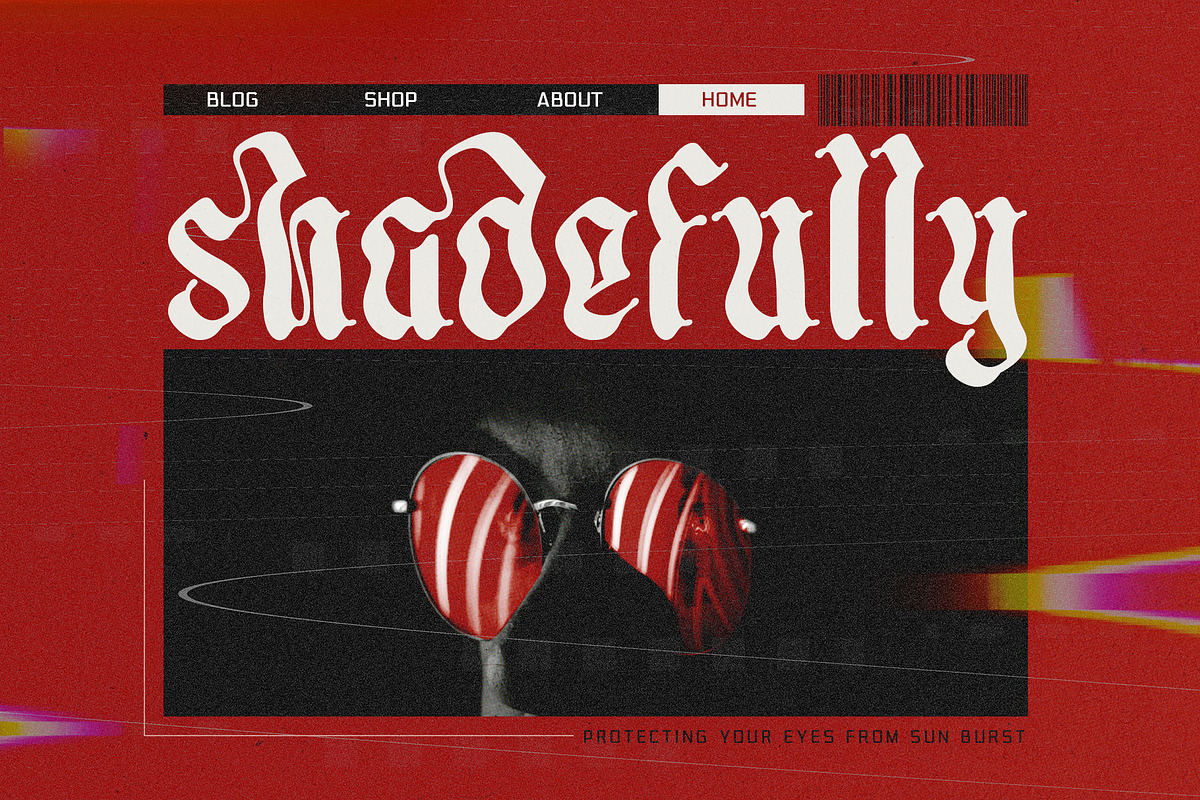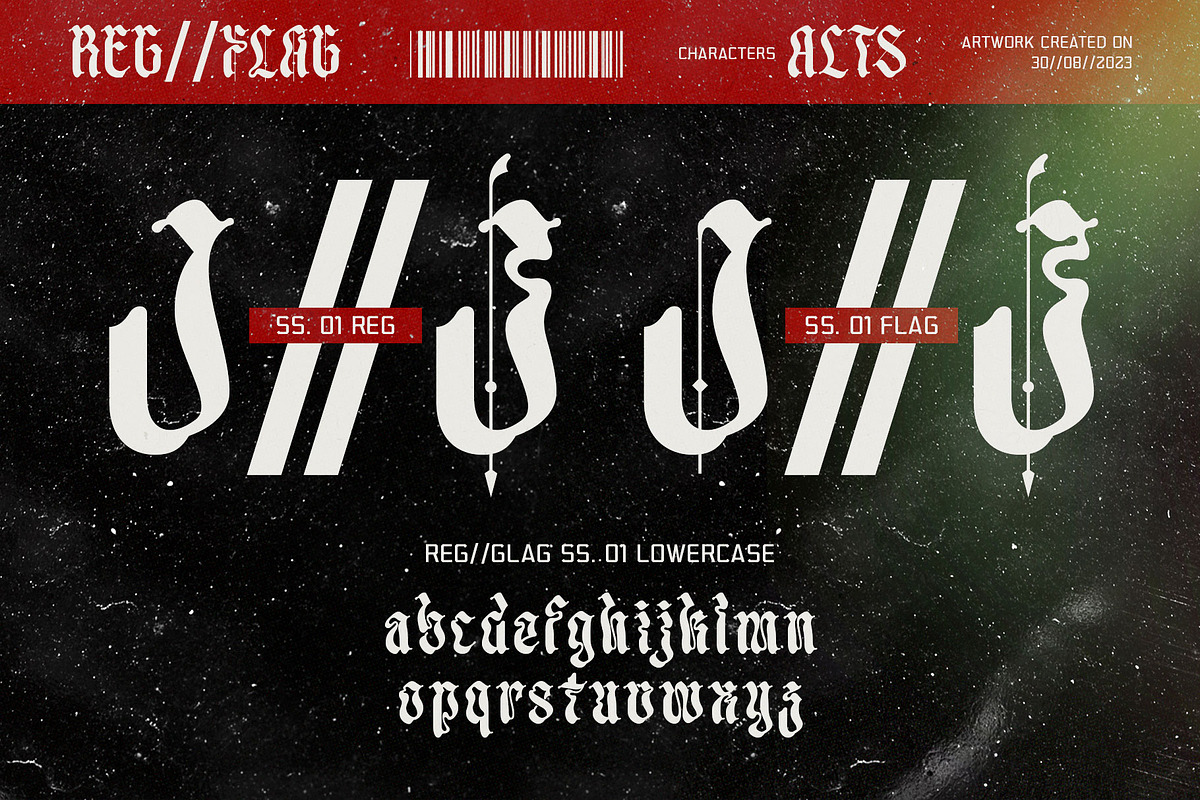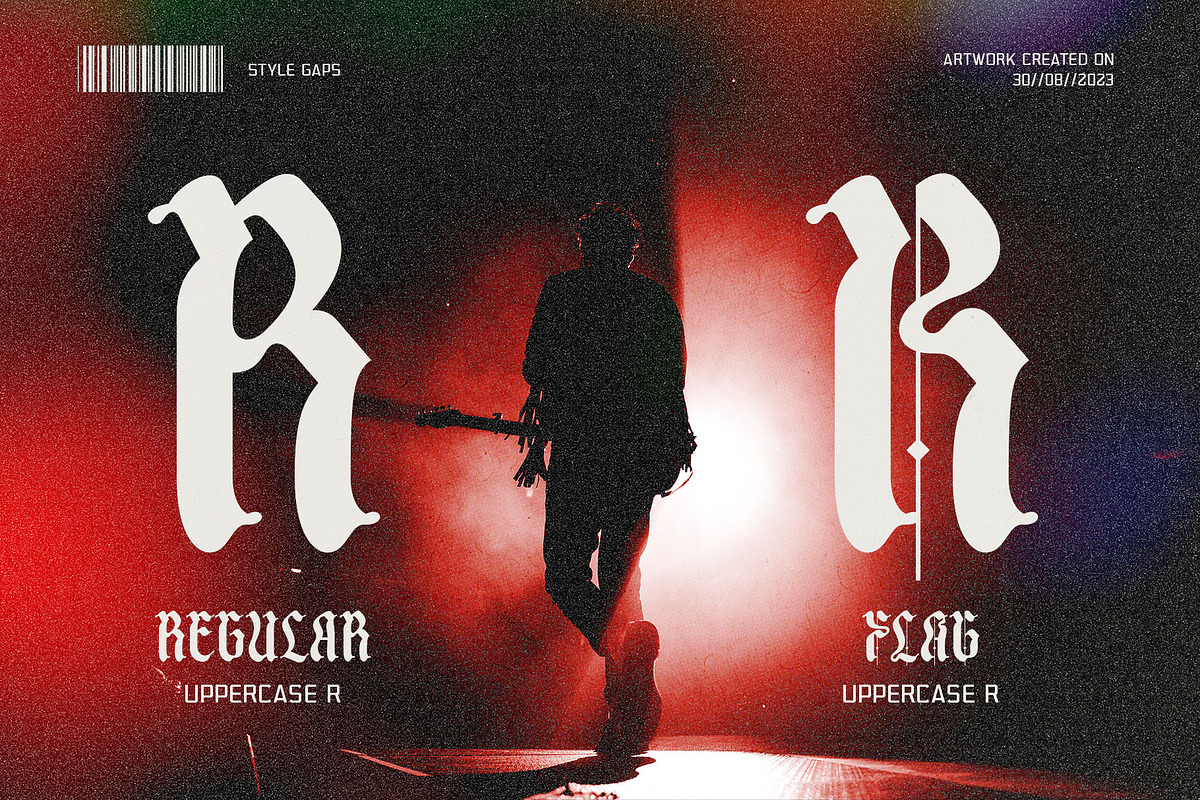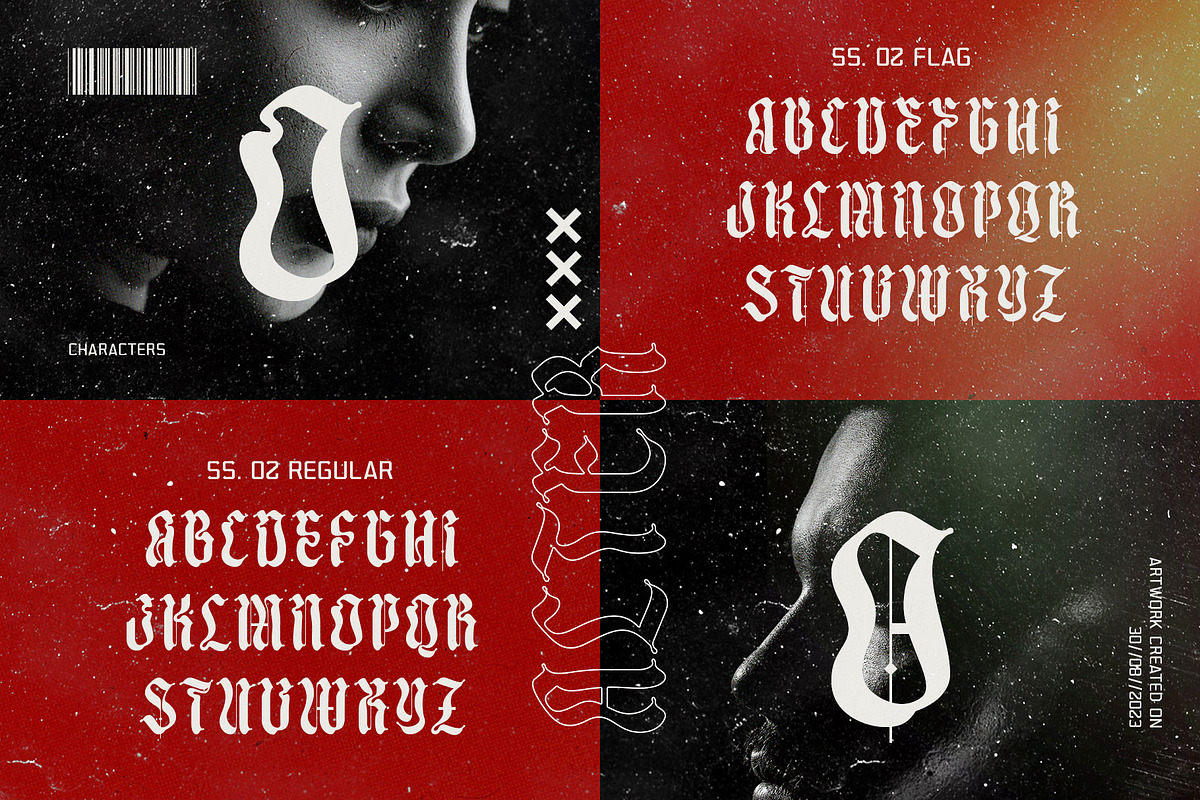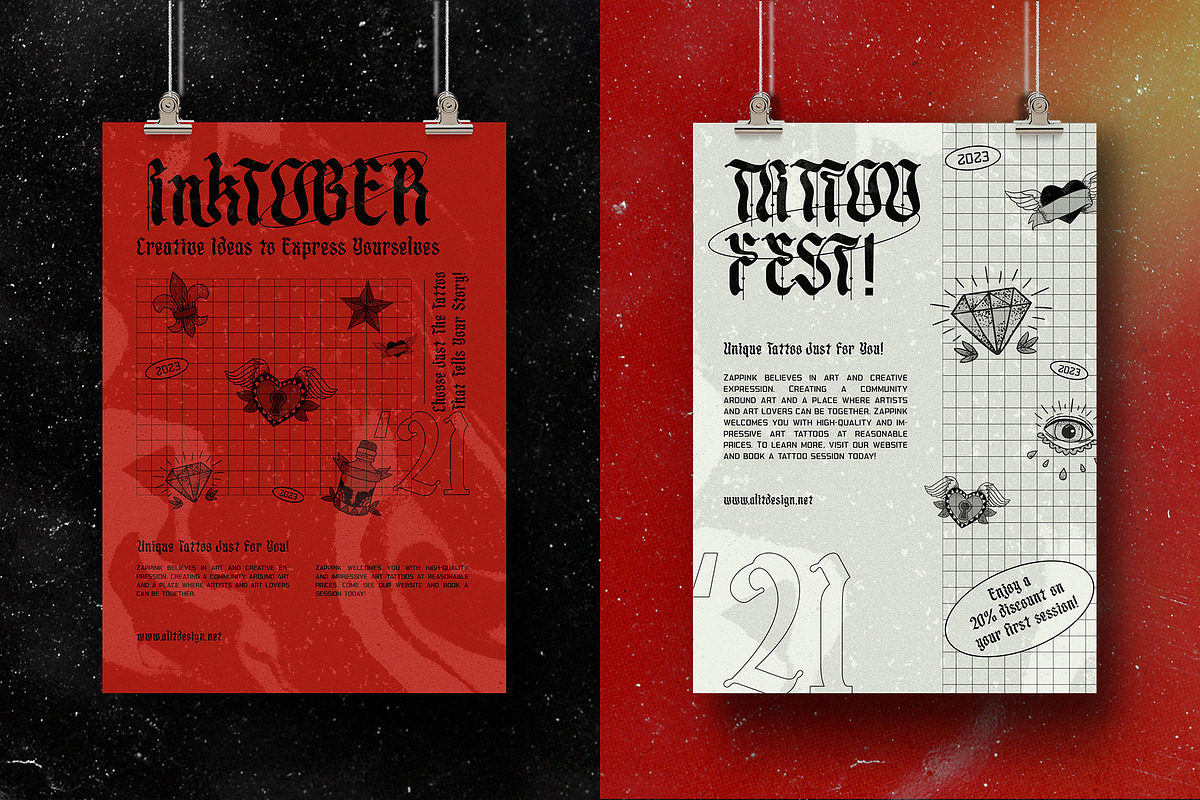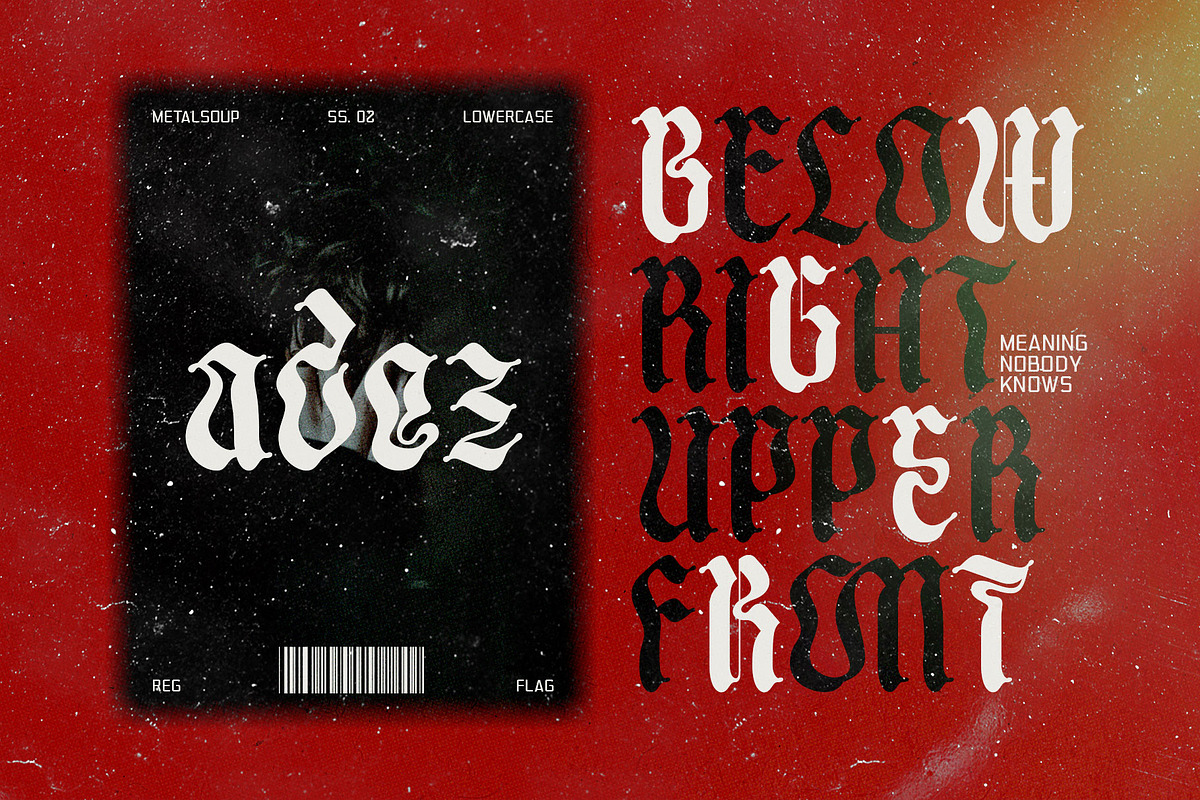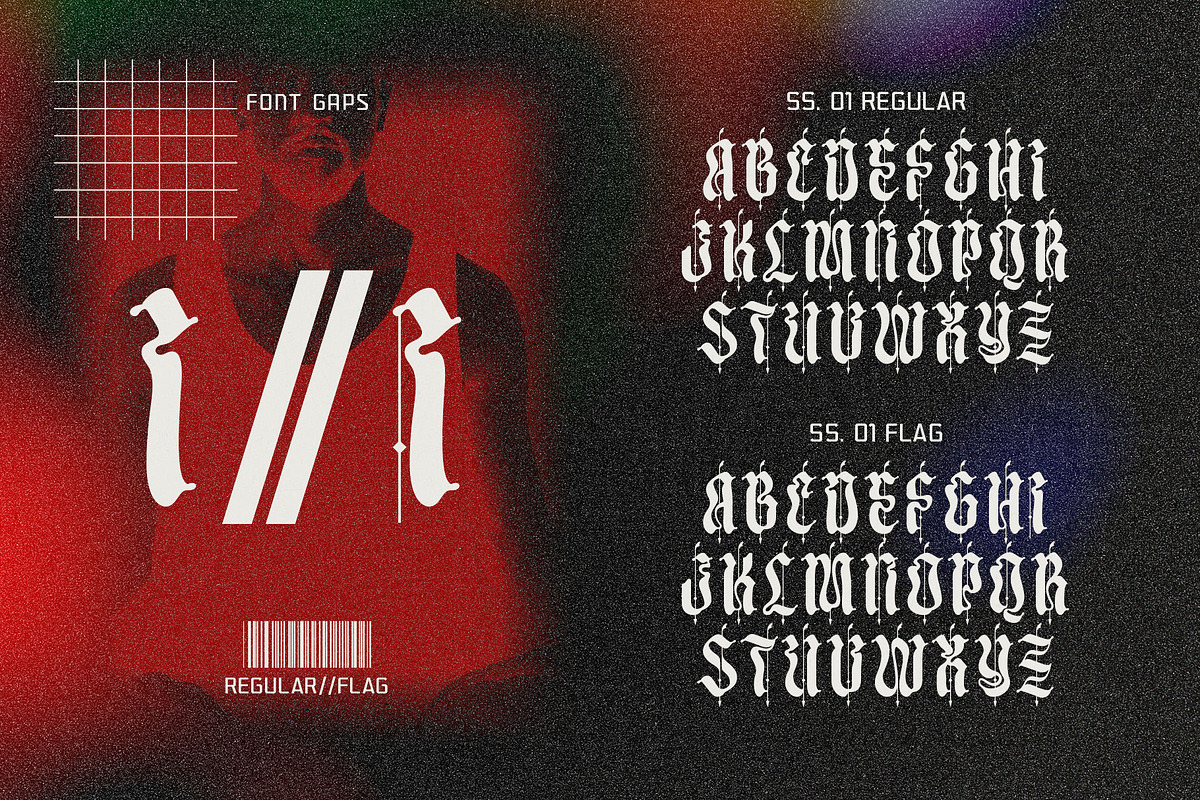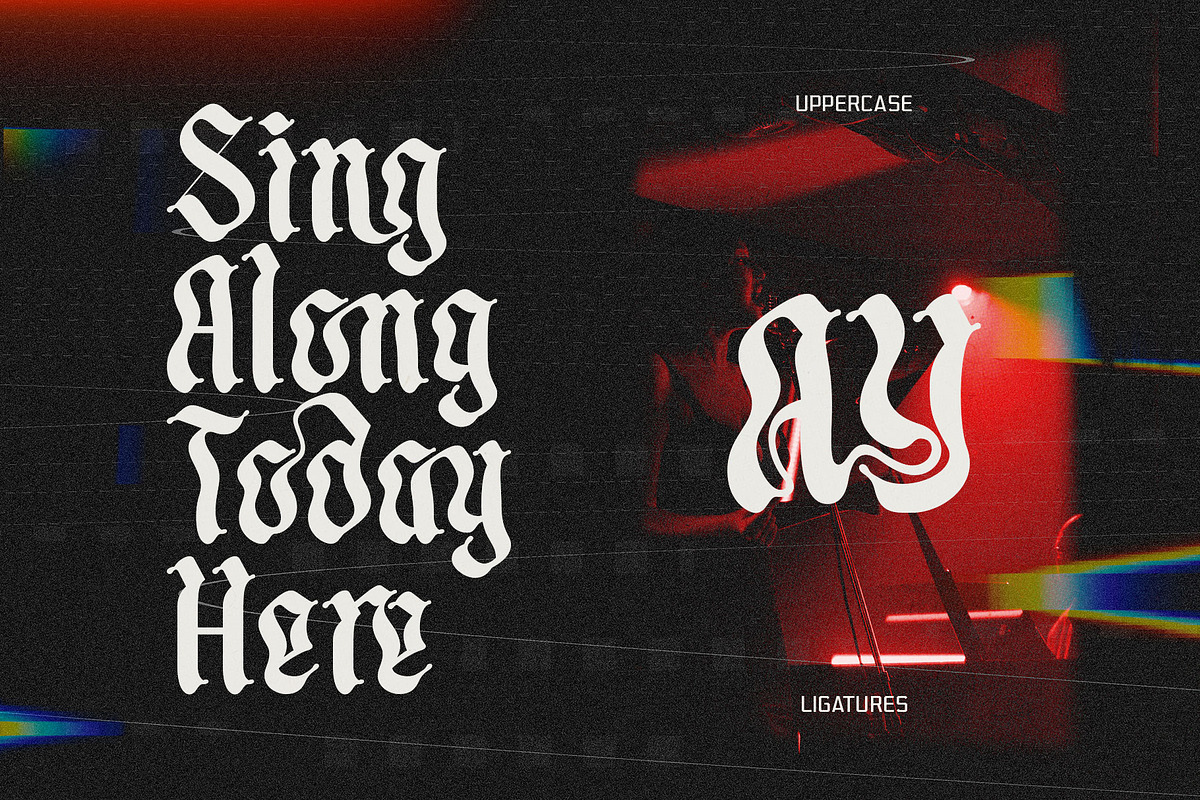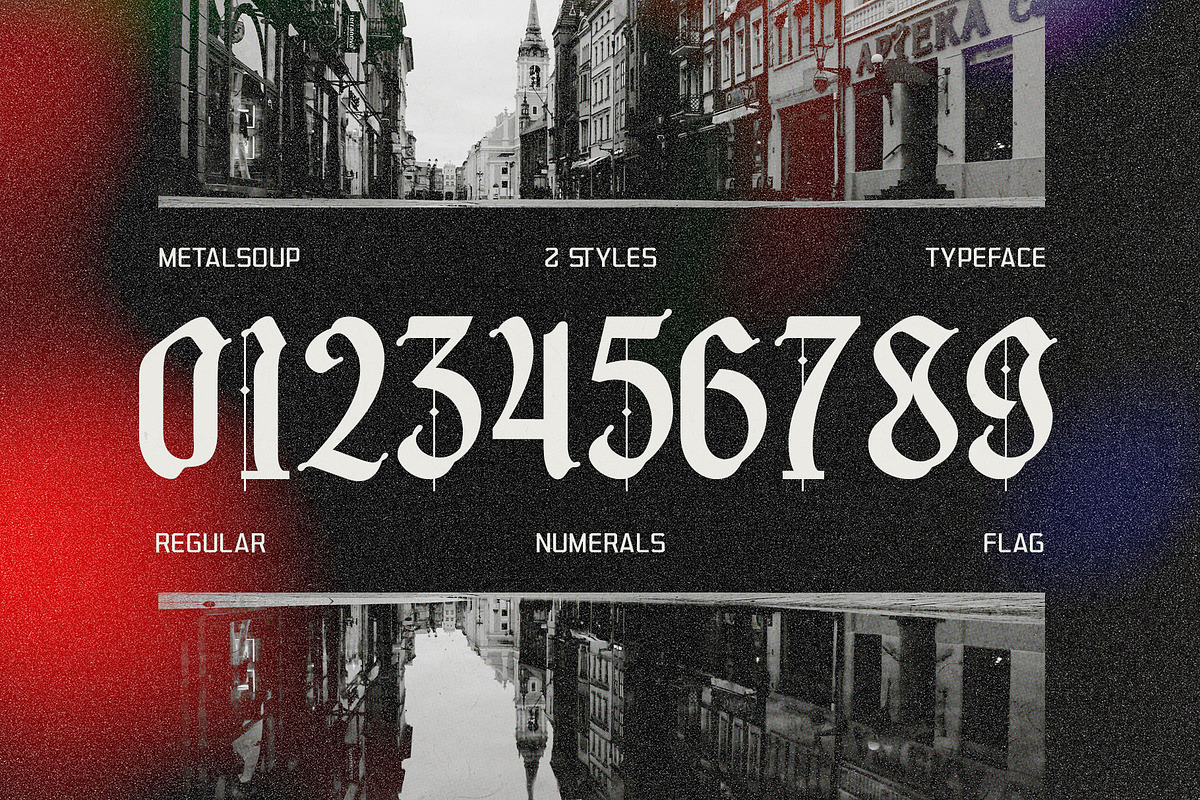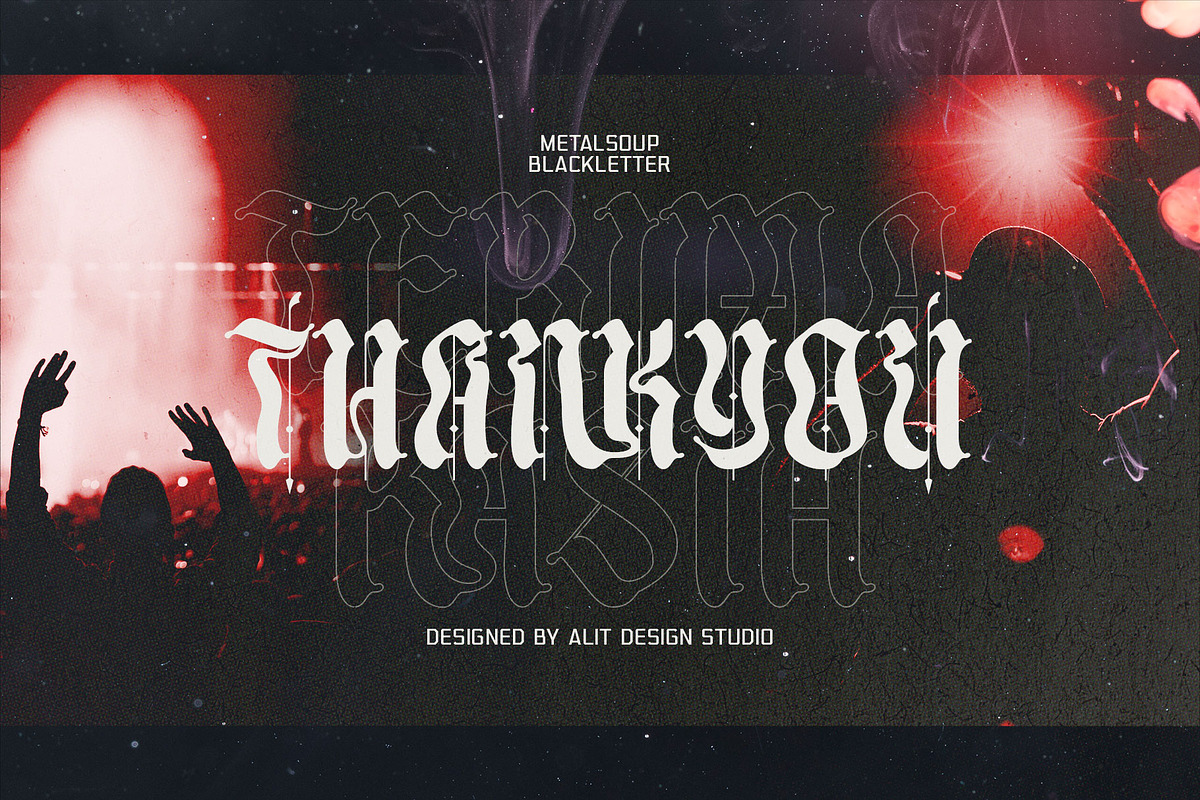
Metal Soup Blackletter Typeface
"Metal Soup" is a captivating blackletter font that exudes a unique blend of boldness and a dynamic, distressed aesthetic. With its robust design, this font is perfect for making a striking statement in your design projects. "Metal Soup" boasts 720 characters and offers comprehensive multilingual support, making it versatile and adaptable for a wide range of creative applications.
Blackletter Style: "Metal Soup" features a classic blackletter design, characterized by its sharp, angular lines and ornate details, giving your text a Gothic, medieval feel.
Destroy Dynamic: The font has been meticulously crafted to incorporate a distressed, weathered look. Each letter retains its integrity while appearing brave and damaged, adding character and a sense of wave unique to your text.
Extensive Character Set: With 720 characters, "Metal Soup" provides comprehensive support for various languages and special characters, ensuring your text looks stunning in multiple contexts.
Alternate Characters: This font includes a variety of alternate characters, allowing you to experiment with different letterforms to achieve the desired aesthetic for your project. These alternates add flexibility and creative options to your typography.
Ligatures: "Metal Soup" features ligatures, which are specially designed combinations of two or more characters that enhance the visual appeal of your text. Ligatures create a harmonious flow and improve readability.
"Metal Soup" is a versatile and visually captivating font that can elevate your design projects, whether you're working on branding, packaging, posters, invitations, or any other creative endeavor. Its blackletter style, destroy dynamic, multilingual support, alternate characters, and ligatures make it a valuable addition to your font library, allowing you to create unique and eye-catching designs that stand out from the crowd.
- Logos and Branding
- Editorial Headlines
- Poster Design
- Apparel and Merchandise
- Website Headings
- Event Invitations
- and more...